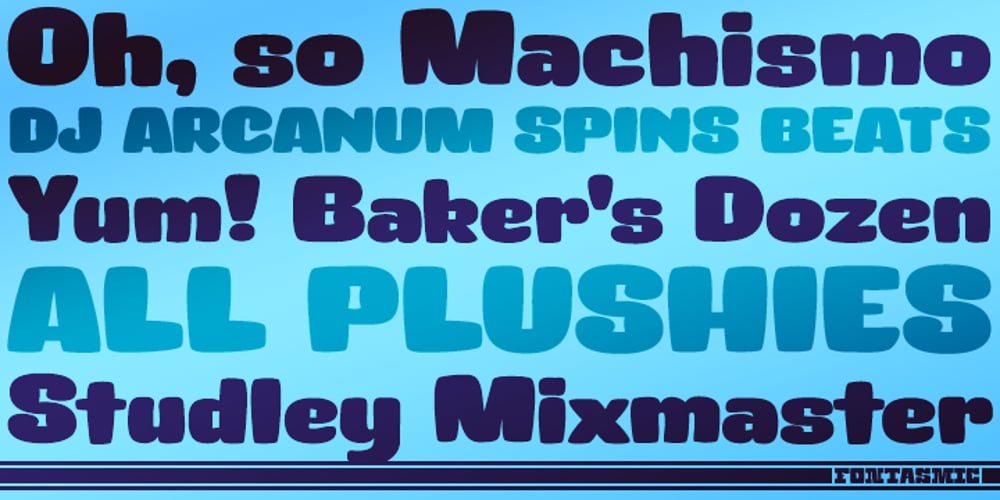
Machismo
Machismo font
Machismo Font Family was designed by Sawyer Hume and published by Fontasmic. Machismo contains 2 styles and family package options. Machismo is a seductively suave display font with a plump and plush persona. Bubbling with personality, this friendly font has a weighted look that gives a bold and striking feel to it. Ideal for various uses from small bursts of copy in children’s books to poster work, logos, and titling. The “titling” variation swaps shortcaps into the lowercase positions, giving the font even more of a macho persona. It’s smooth, it’s bold, it’s friendly, it’s the ultimate pickup artist font, luring in onlookers to get a closer look at what you have to say. Say what you’ve been wanting to say with Machismo Titling.